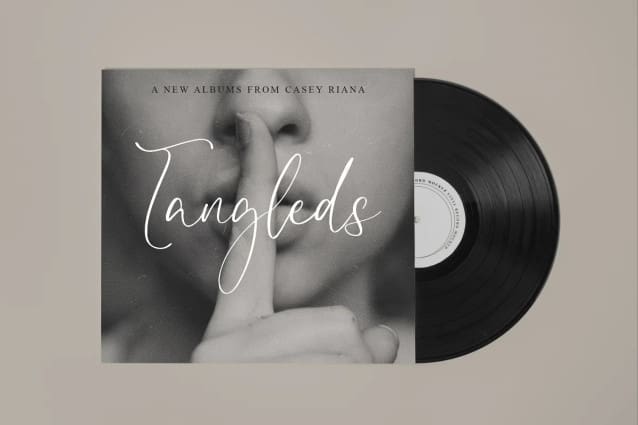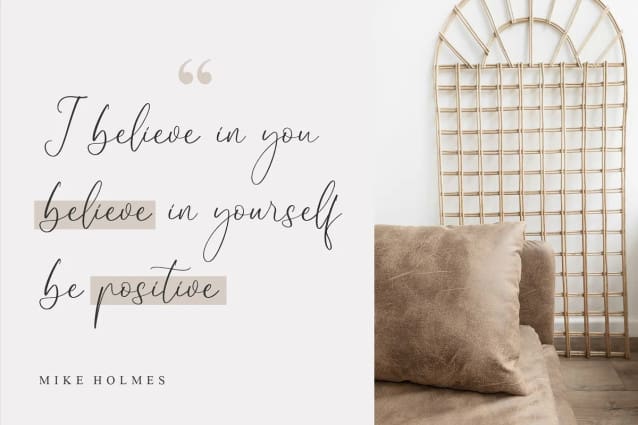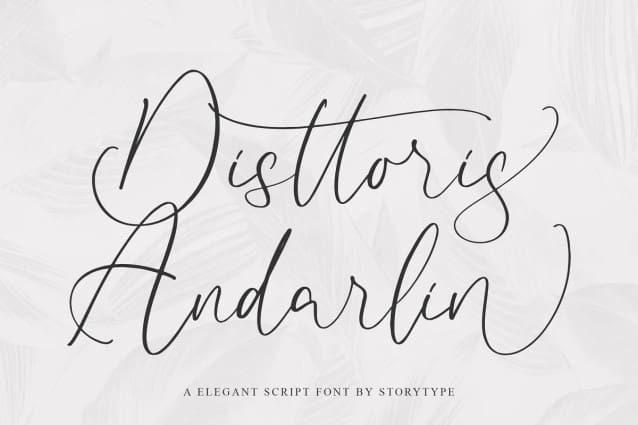
Disttoris Andarlin Font
Disttoris Andarlin Font – Elegant Script Font , created by Storytype, A luxury script that has own unique style & modern look. This typeface is perfect for an elegant & luxury logo, book or movie title design, fashion brand, magazine, clothes, lettering, quotes, and so much more.